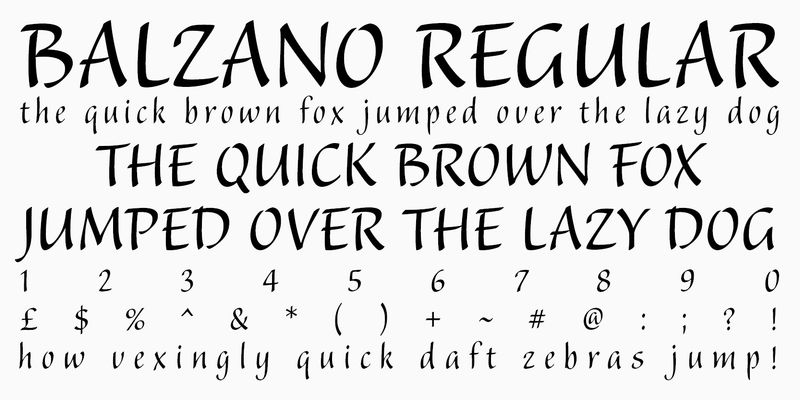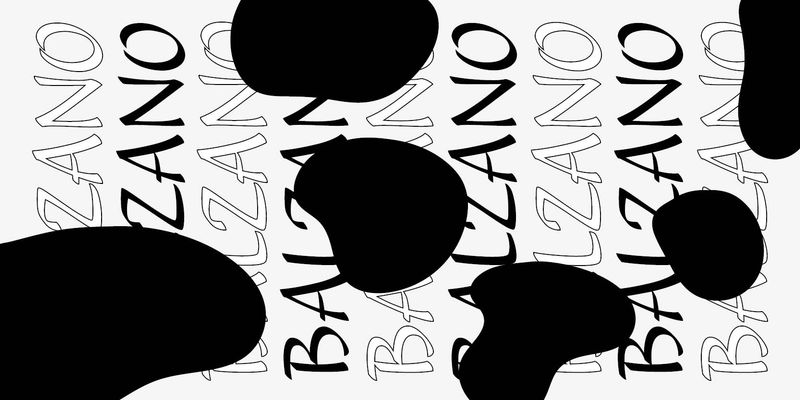
America’s most famous carver of inscriptions, including those at the John F. Kennedy Memorial in Arlington National Cemetery, John Benson conceived Balzano (Italian for “bouncing”) as an upright script whose character would come from active individual strokes and letter shapes. He was particularly inspired by a page of pen-written letters by calligrapher Raphael Boguslav. As a result, Balzano features thin hairlines and pronounced vertical strokes with active terminals. Open counterforms and varying letter heights contribute to the vitality of this 1995 Adobe Originals release. Although suitable for brief copy in larger text sizes, Balzano excels in display settings.